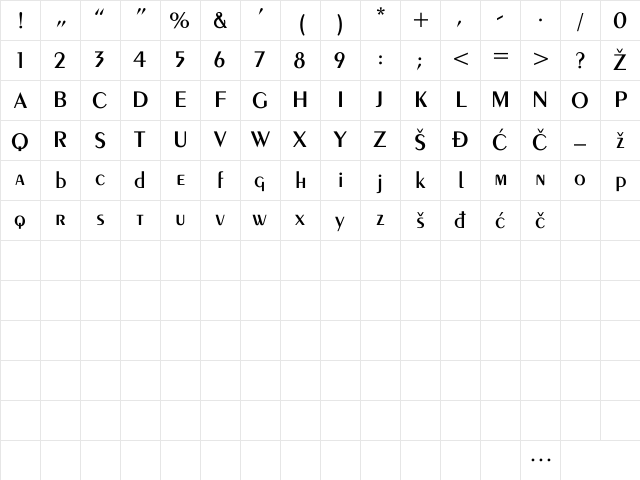
Exotic Regular
Exotic Family
Design Context for Exotic
Exotic is a composed and adaptable typeface that performs quietly and consistently across a wide range of design contexts.